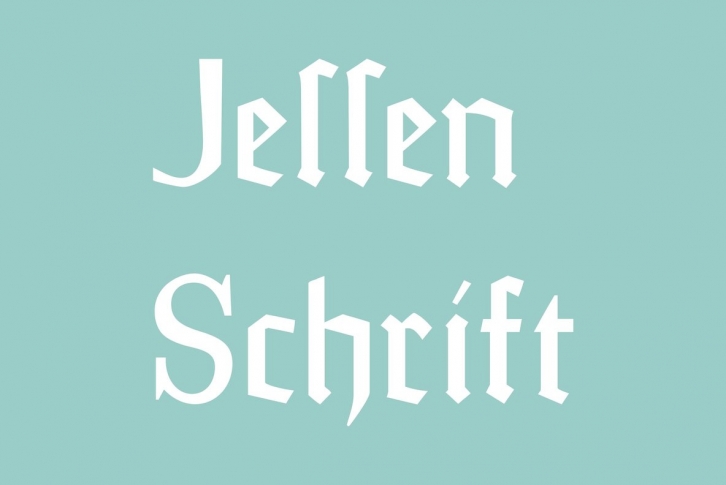
The original Jessen typeface, named in reminescence of the great supporter of the printing art at the end of the 19th century, Peter Jessen, was designed in the years of 1924 until 1930. Bible Gothic was created by the famous German designer Rudolf Koch. Ralph M. Unger digitized this font exclusively for profonts in 2005, keeping his digitization as close as possible to the original design of Koch in order to preserve the distinguished character and the partly unconventional, original forms.
The concept of a Bible Gothic was developing for years in Koch's mind and drove the direction of his work, but only after the experience with his Neuland design could he start the creation of his Peter Jessen typeface. Produced quite like Neuland, Jessen, however, is much more refined and more accurate in detail than Neuland. At first glance, it seems to look plain and simple, but if you look closer, the richness of its distinguished upper case forms unfold to a perfectly clear flow of text.